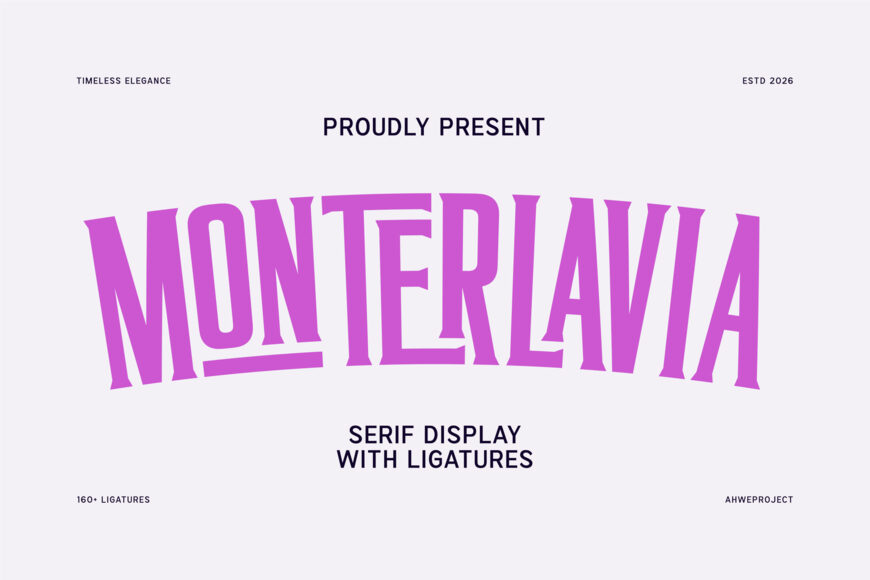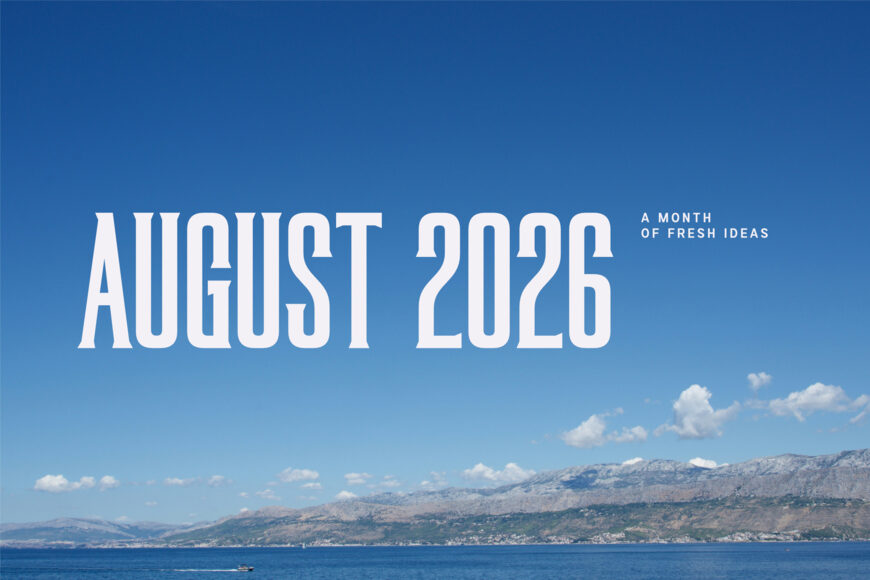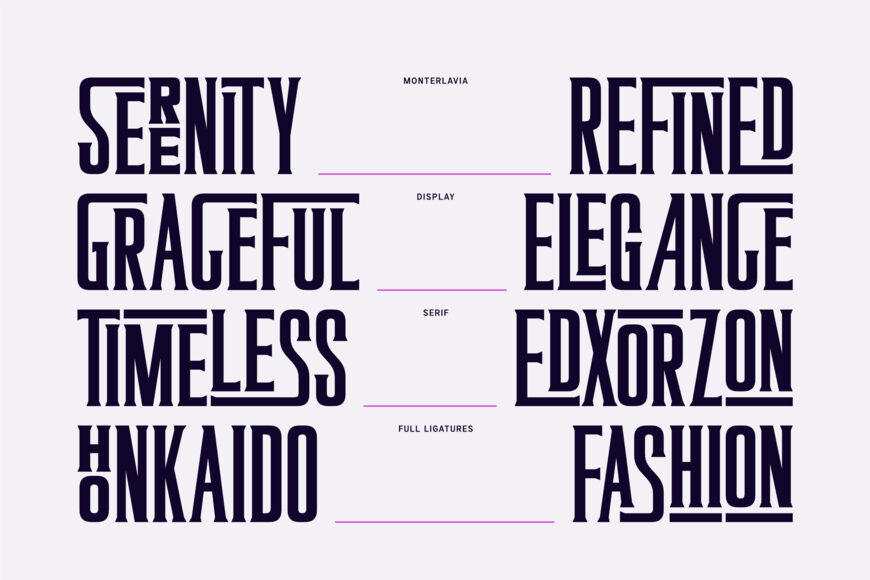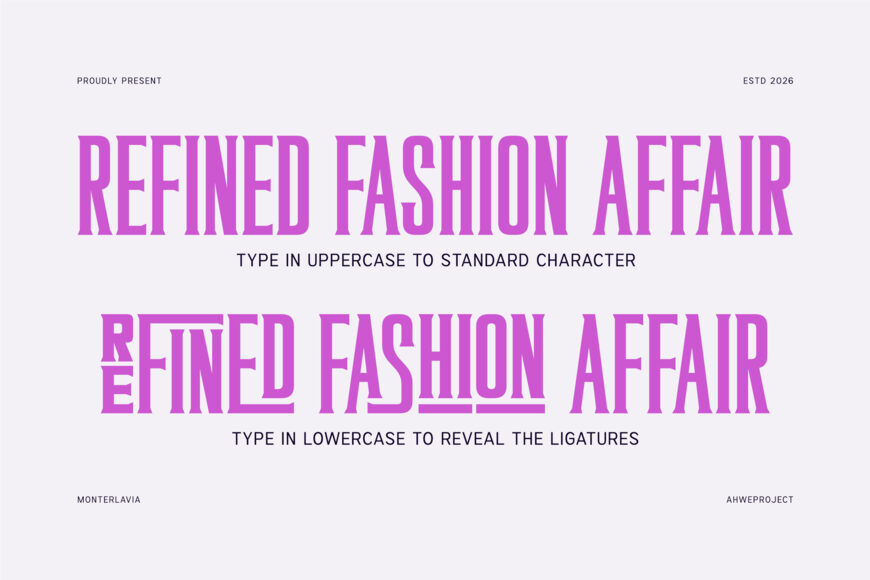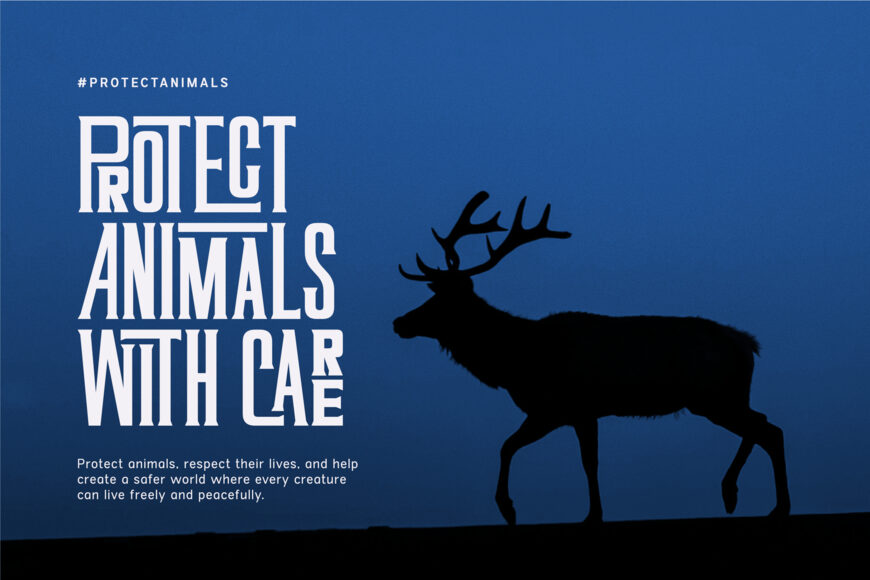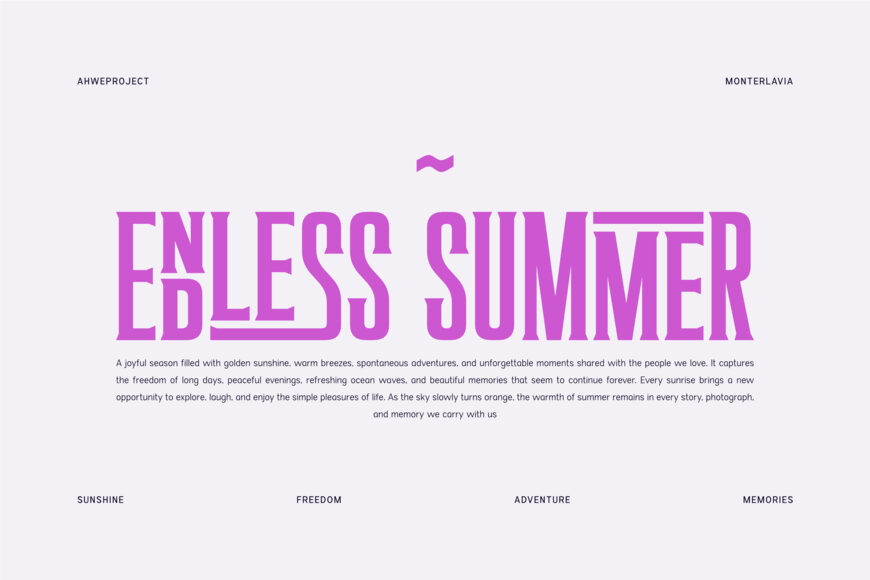
Monterlavia Font
Monterlavia is a distinctive serif display typeface designed to add elegance, character, and a sophisticated editorial touch to any project. Its tall proportions, expressive serifs, and graceful letterforms create a commanding yet timeless presence.
Featuring more than 160 carefully crafted ligatures, Monterlavia enables expressive, customized typography. Headlines and logotypes can achieve the feel of bespoke lettering rather than standard typed text, making each design more memorable.